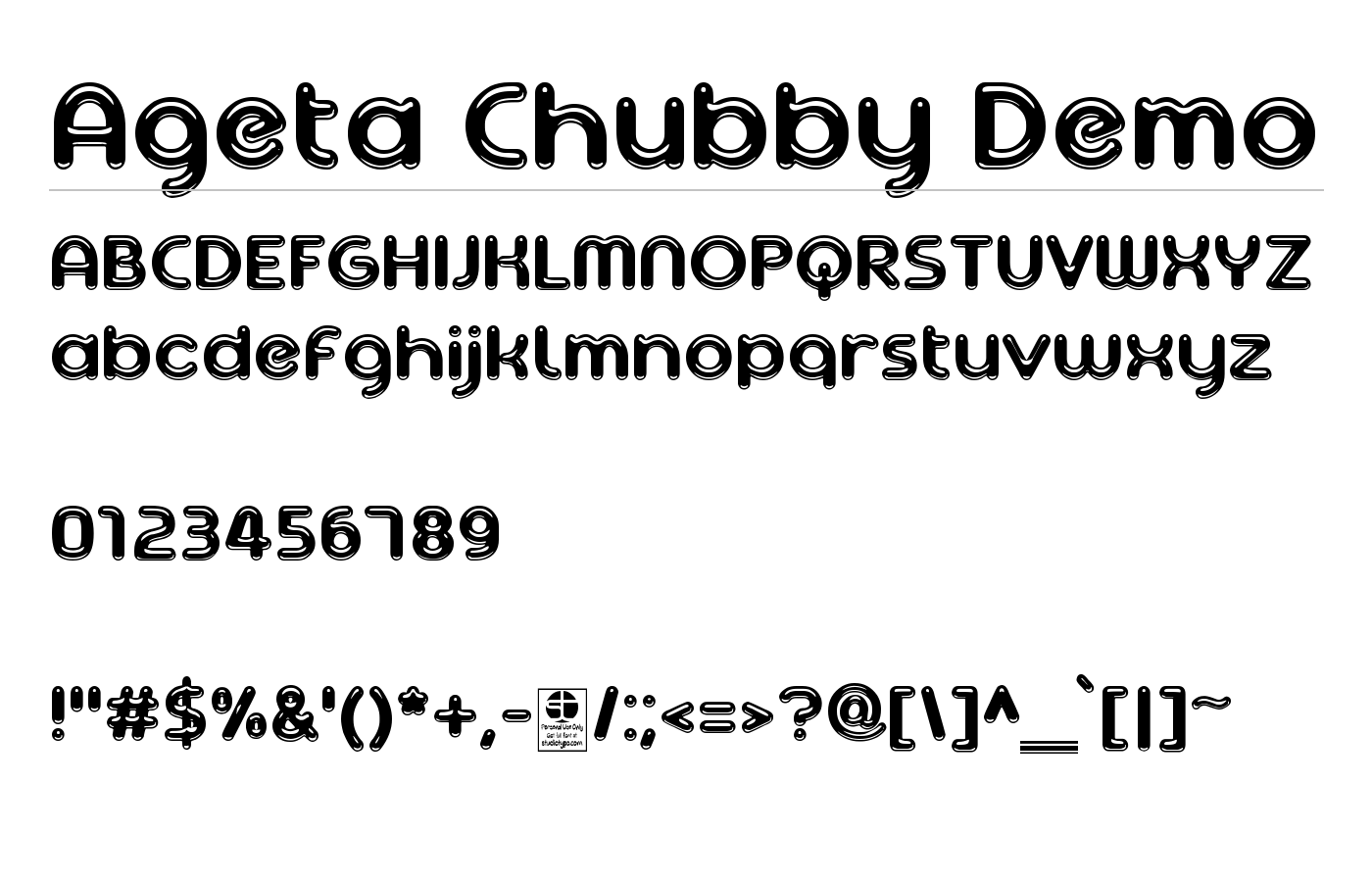
Ageta Chubby Demo is a playful and bold sans serif font featuring rounded, chubby letterforms with a unique double-line effect that adds depth and character. Its generous width and consistent stroke create a friendly, approachable feel, making it ideal for eye-catching headlines, logos, and creative branding that seeks a fun, modern vibe. This font works well in designs where personality and a touch of whimsy are needed to attract attention and convey warmth.
Ageta Chubby Demo Font
About Ageta Chubby Demo Font